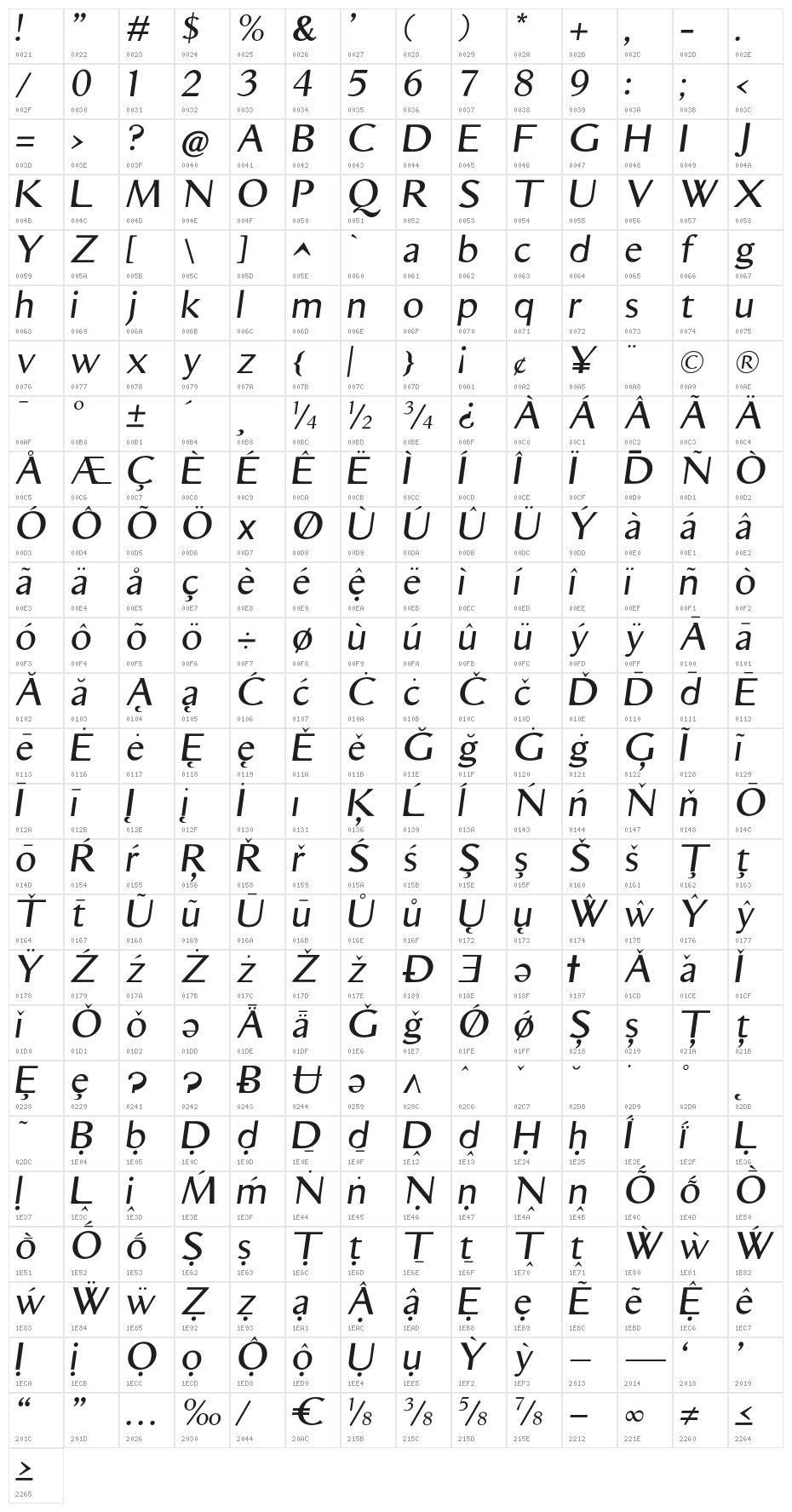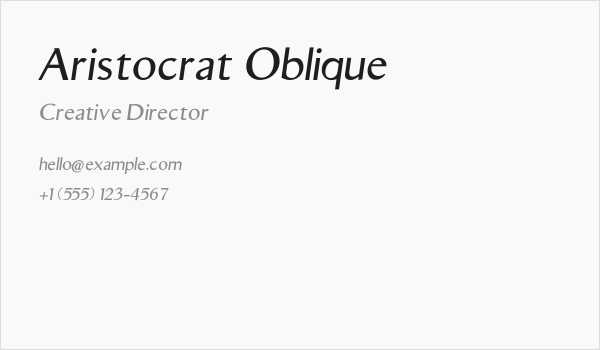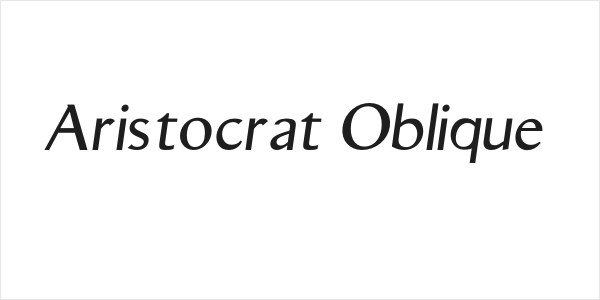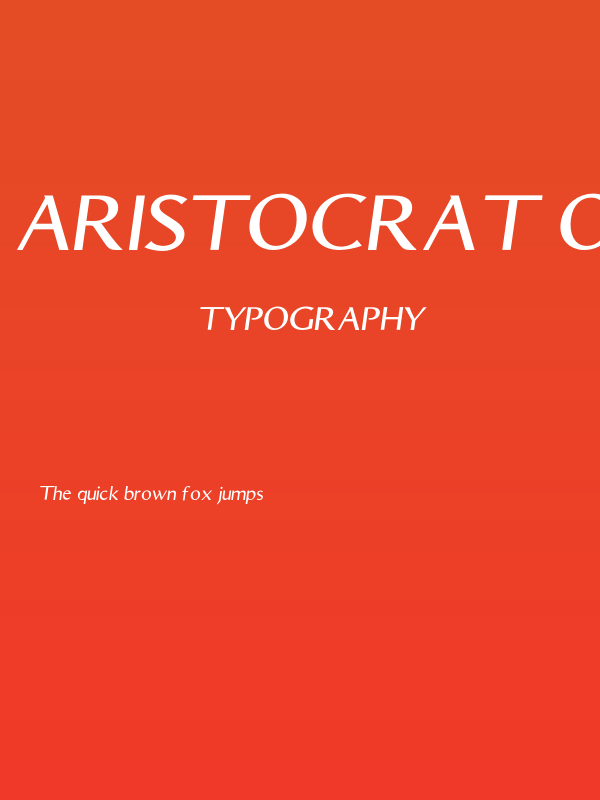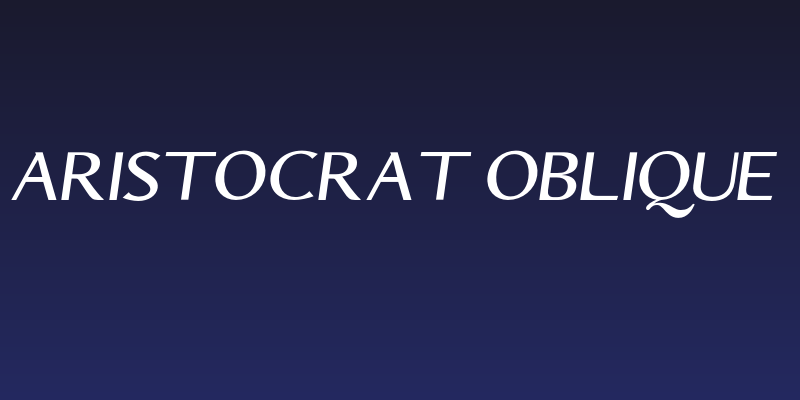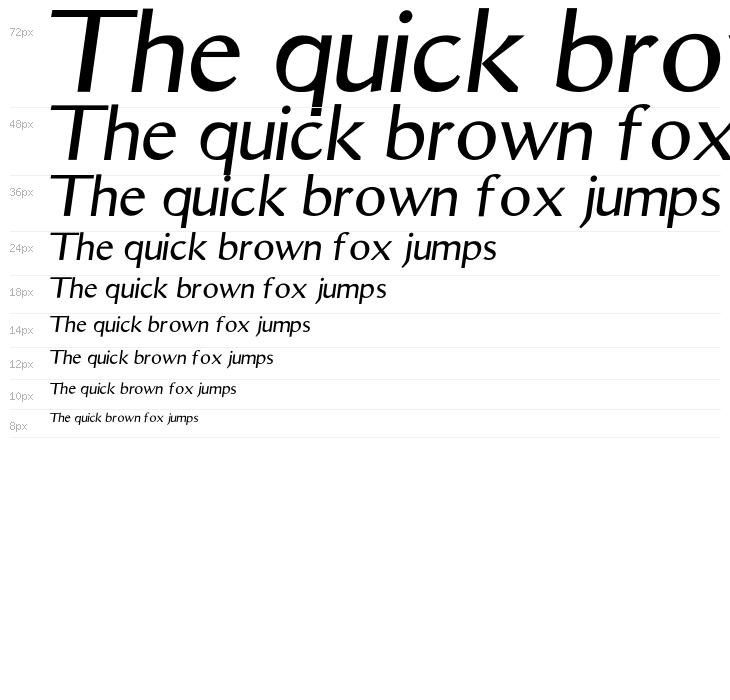
Aristocrat Oblique Font
Aristocrat Oblique Description
This font features a sleek and elegant design with a distinct oblique style, giving it a dynamic and sophisticated appearance. The characters are slightly slanted, adding a sense of movement and fluidity. The strokes are clean and consistent, with a moderate contrast between thick and thin lines, enhancing readability while maintaining an artistic flair. The uppercase letters are bold and commanding, while the lowercase letters maintain a graceful and approachable demeanor. The numerals are well-proportioned, and the special characters are crafted with precision, making this font versatile for various applications.
| Proposed Projects | Ideal for branding, editorial design, and elegant invitations. |